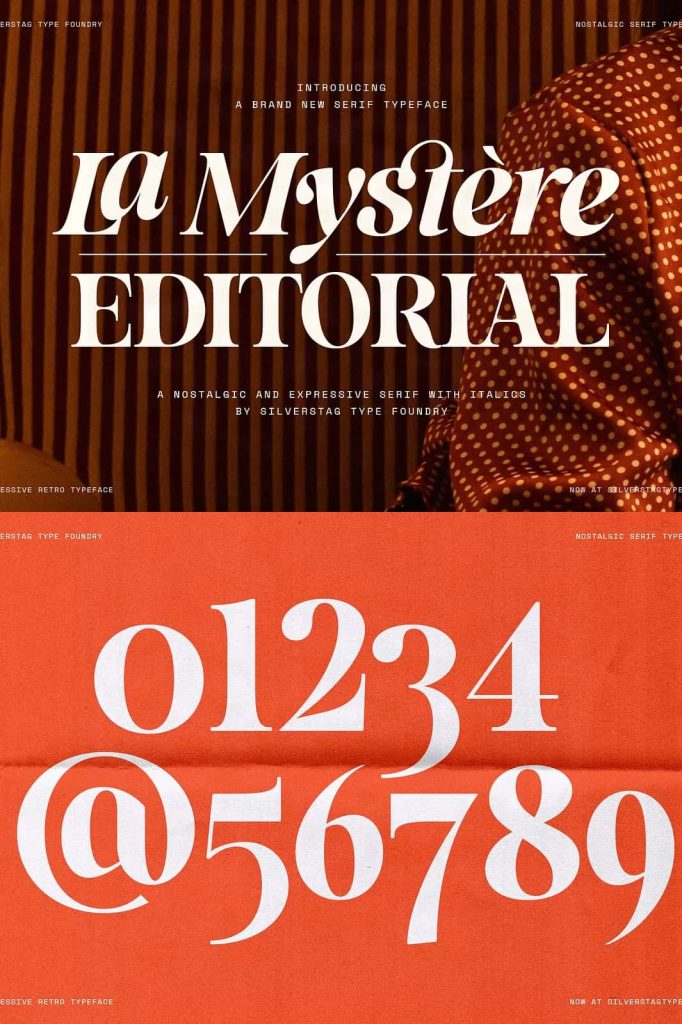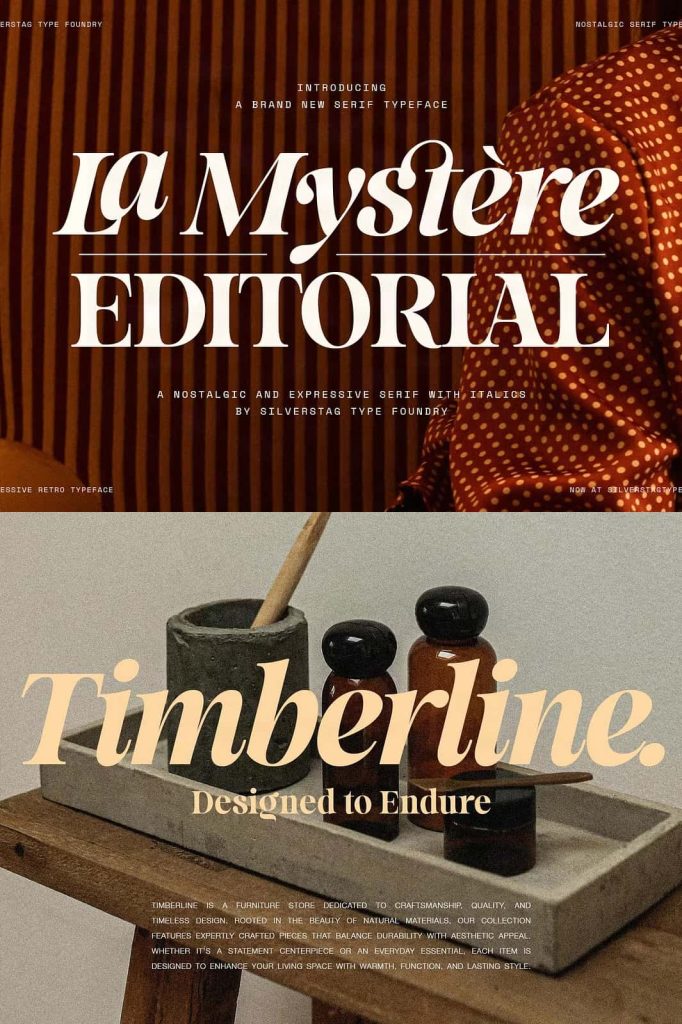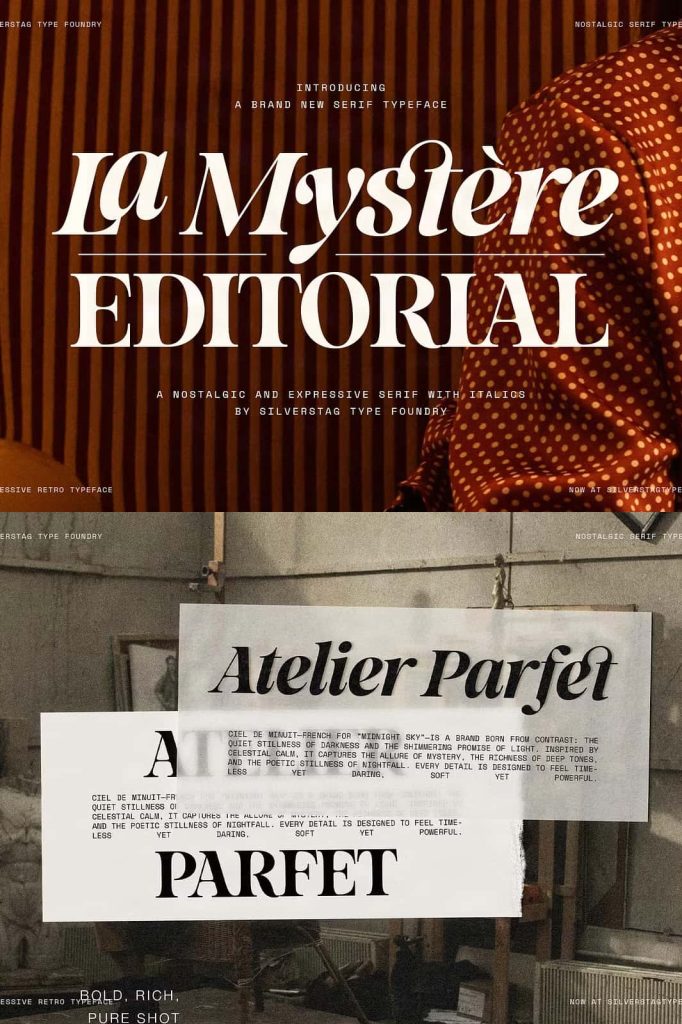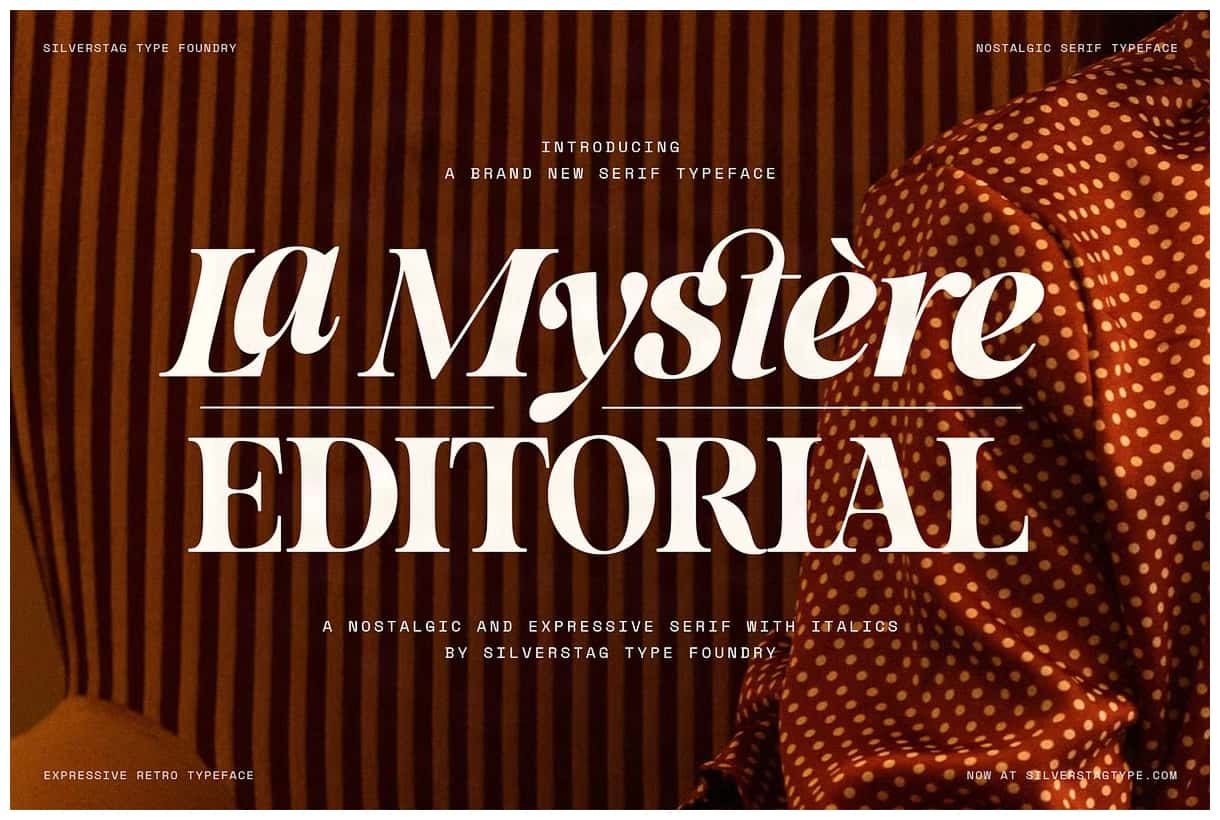
SLTF La Mystère – a bold and graceful serif typeface designed with expressive curves, soft edges, and beautifully sculpted serifs. Crafted for designers who want to create refined, editorial-driven work, La Mystère blends classical inspiration with modern flair.
Elegance Crafted with Precision
Each character in SLTF La Mystère is thoughtfully built with balance and proportion in mind. The typeface features soft edges and expressive curves that flow gracefully, creating a seamless reading experience. Its sculpted serifs lend a touch of authority and sophistication, making it ideal for luxury brands, fashion magazines, editorial spreads, and creative portfolios. Whether used in display sizes or body text, SLTF La Mystère brings an aura of professionalism and refinement to every layout.
Inspired by Classical Beauty, Refined for Modern Use
Drawing inspiration from traditional serif forms, SLTF La Mystère embraces the timeless qualities of classic typography while infusing it with a fresh, modern aesthetic. The result is a font that feels both familiar and innovative. The smooth contours and well-defined details make it suitable for designers who appreciate structure and style. This balance of old-world charm and contemporary design ensures that SLTF La Mystère stands out in digital and print mediums alike.
Versatile and Expressive Design Possibilities
SLTF La Mystère offers versatility across creative disciplines. Its expressive curves make headlines feel artistic, while its strong letterforms provide stability in body copy. Whether you are designing branding materials, editorial layouts, book covers, or elegant packaging, this serif typeface adapts beautifully. Its legibility and character allow it to shine in both large and small text applications, ensuring consistent impact across all visual compositions.
Perfect for Editorial and Branding Projects
Editorial designers will appreciate how SLTF La Mystère effortlessly adds personality and polish to magazine layouts and digital publications. The typeface’s refined proportions make it perfect for editorial headlines, subheadings, and pull quotes. For branding projects, it communicates trust, creativity, and luxury—qualities that make it an excellent choice for premium identities, fashion houses, and high-end product packaging.
Timeless Style Meets Modern Functionality
What sets SLTF La Mystère apart is its ability to merge classic design values with contemporary functionality. The typeface has been meticulously optimized for both print and screen use, ensuring clarity and precision in every medium. Whether displayed on a high-resolution magazine cover or a minimalist website layout, it maintains its beauty and balance.
Why Choose SLTF La Mystère?
- Elegant serif details with modern flair
- Ideal for editorial, branding, and luxury design
- Highly legible across print and digital platforms
- Expressive curves that bring warmth and sophistication
- Perfectly balanced proportions for professional use
Conclusion
SLTF La Mystère is more than just a typeface—it’s a visual statement of elegance, confidence, and artistic sophistication. Designed for modern creators who appreciate craftsmanship and style, it bridges the gap between the timeless and the contemporary. With its sculpted serifs, smooth contours, and graceful energy, SLTF La Mystère empowers designers to create captivating, editorial-driven work that speaks with both beauty and authority.